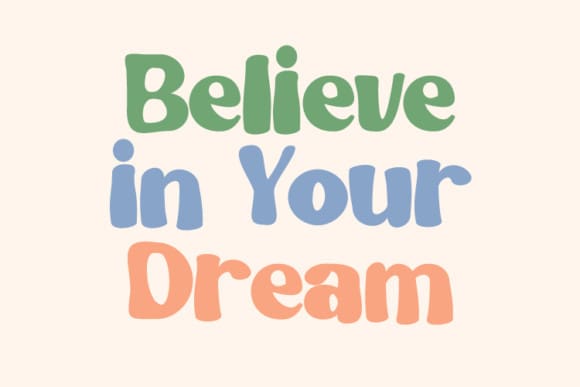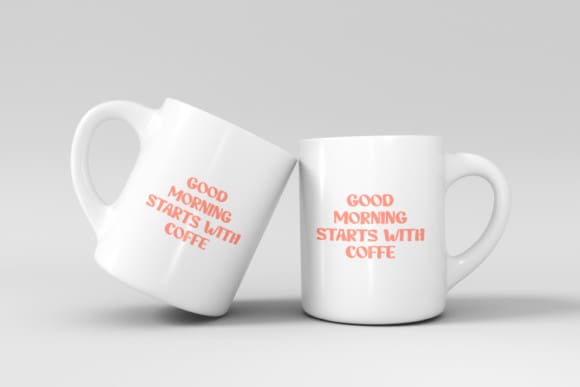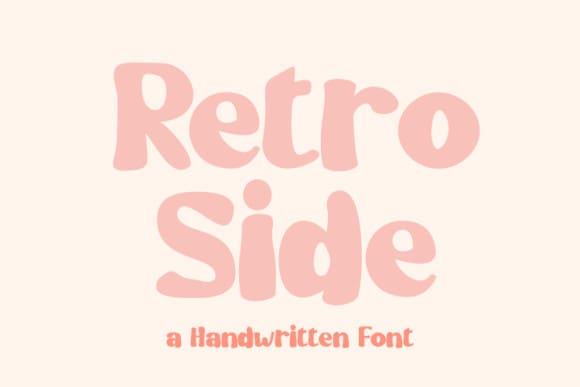
Retro Side Font
Retro Side Font is a retro handwritten display font. It has a cool and playful look that can be used for logos, branding, invitations, stationery, wedding designs, social media posts, and so much more. Featuring the perfect amount of trendiness, this font will make your designs come to life.